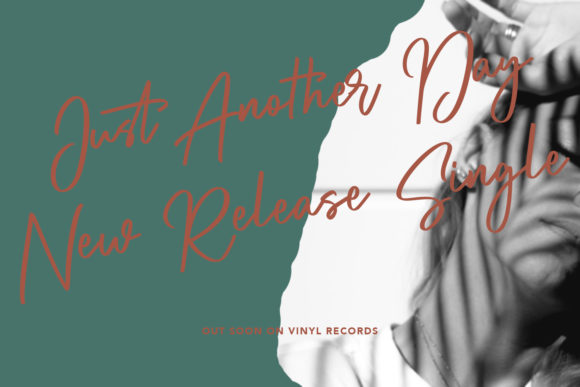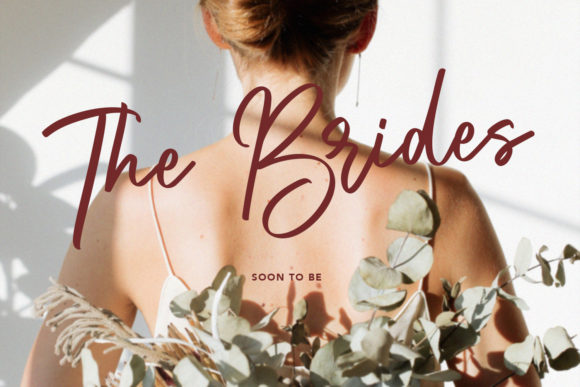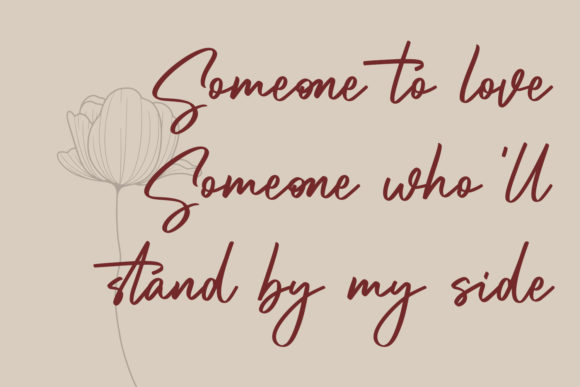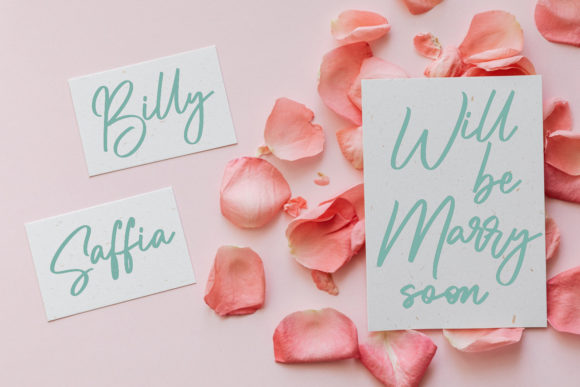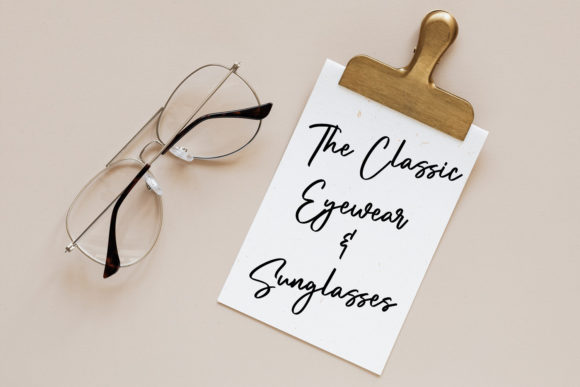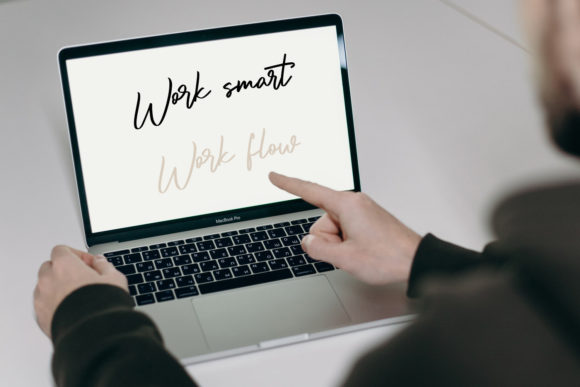
When Style Meets Sophistication: The Amorflavor Font
Have you ever been working on a design project, and suddenly, the perfect font pops into your mind? For me, it was during a late-night brainstorming session, and I was searching for the perfect script font to elevate my client’s brand. That’s when I stumbled upon the Amorflavor Font, and I knew I had found my match.
The Amorflavor Font is a chic, refined script font that exudes sophistication and elegance. Its stylish alternates and ligatures make it the perfect choice for designers looking to add a touch of refinement to their projects. Whether you’re working on a luxury brand, a wedding invitation, or a high-end publication, the Amorflavor Font is sure to impress.
What sets the Amorflavor Font apart is its versatility and the level of detail that goes into its design. As a designer, you’ll appreciate the value it brings to your projects, and the confidence it gives you to create something truly exceptional.
Amorflavor Font Key Features
- Font Family: Amorflavor, Amorflavor Bold, Amorflavor Italic, Amorflavor Bold Italic
- Unique Characteristics: Amorflavor features a unique blend of hand-drawn and digital elements, with intricate details and subtle texture
Amorflavor Font Review
Overall, I have mixed feelings about the Amorflavor Font. ✨ One thing that works well is its playful, whimsical feel, which makes it perfect for adding a touch of personality to children’s books, magazines, or other projects that require a lighthearted tone. The font’s subtle texture and rounded edges also make it a great choice for titles or headings that need a bit of visual interest.
Another advantage of the Amorflavor Font is its versatility – it’s available in a range of weights and styles, making it easy to use for both bold and delicate typography.
- ⚠️ The font can be a bit overused, especially in digital design, where it may be seen as too childish or cliche.
- ⚠️ The Amorflavor Font may not be the best choice for professional or formal projects, as its playful feel can come across as unprofessional.
- ⚠️ In smaller font sizes, the Amorflavor Font can become difficult to read due to its intricate details and texture.
Overall, I would recommend the Amorflavor Font for projects that require a fun, playful tone, but with some caution and consideration of the potential limitations.
Getting the Most Out of Amorflavor Font
For optimal results, use the Amorflavor font in conjunction with bold or italic text to add emphasis.
The Amorflavor font is ideal for:
1. Creating eye-catching titles and headings.
2. Adding a touch of elegance to wedding invitations and event materials.
3. Designing unique and creative marketing materials.